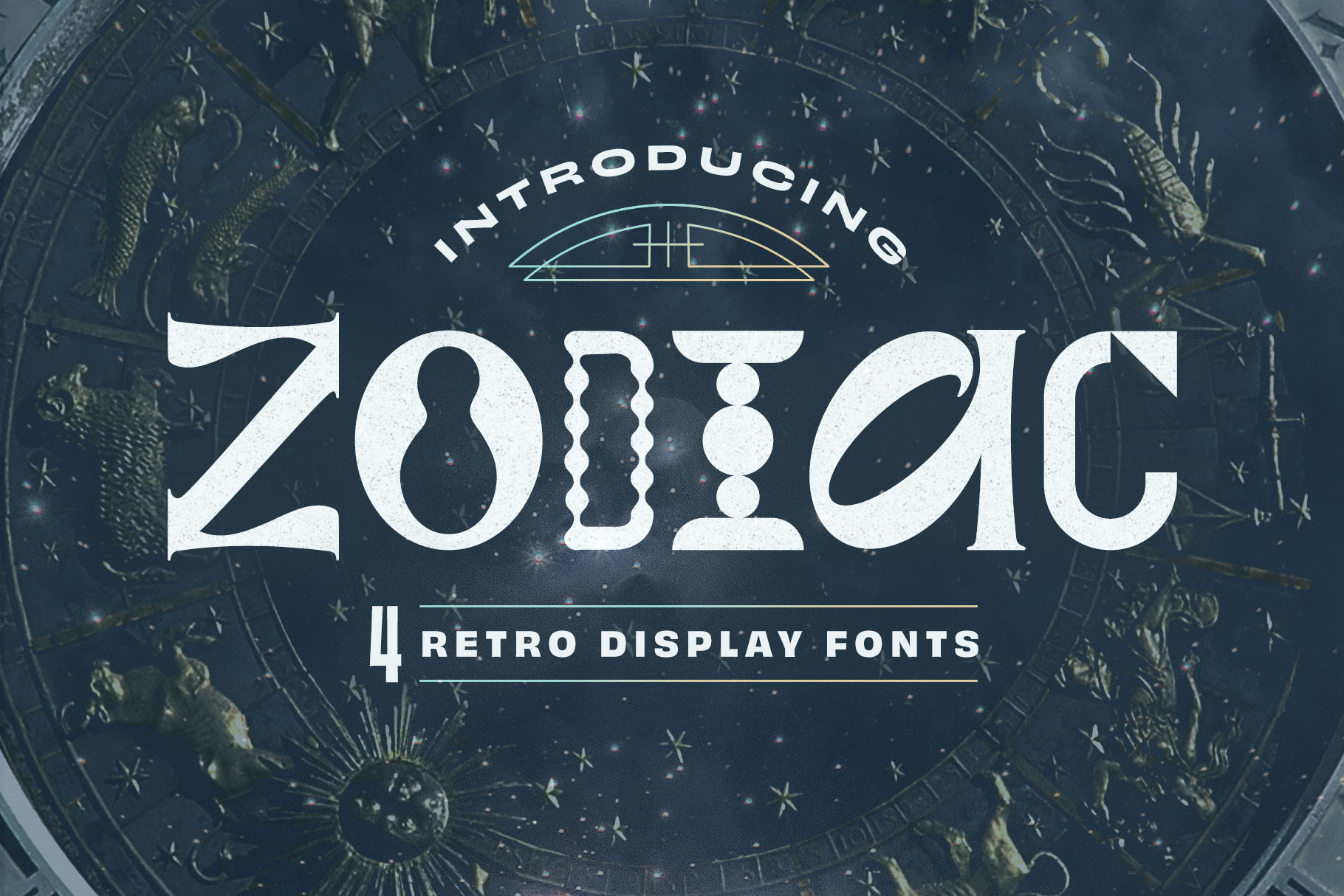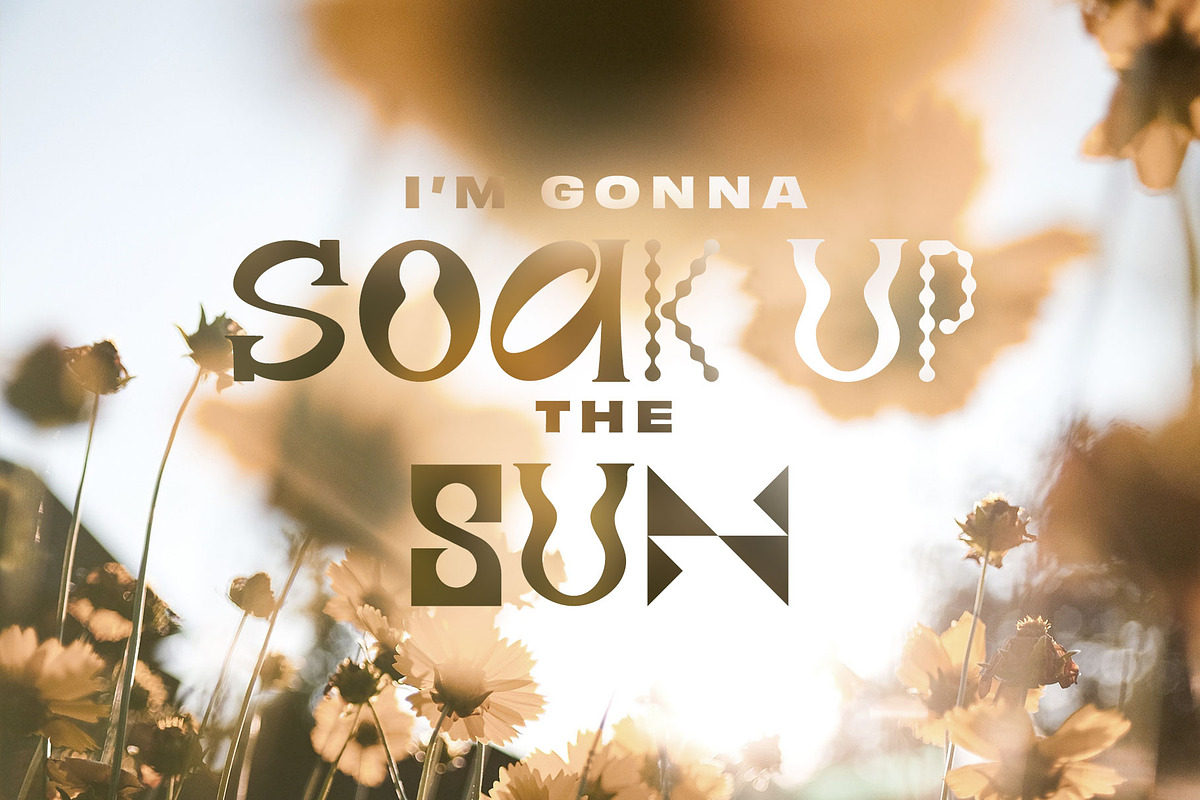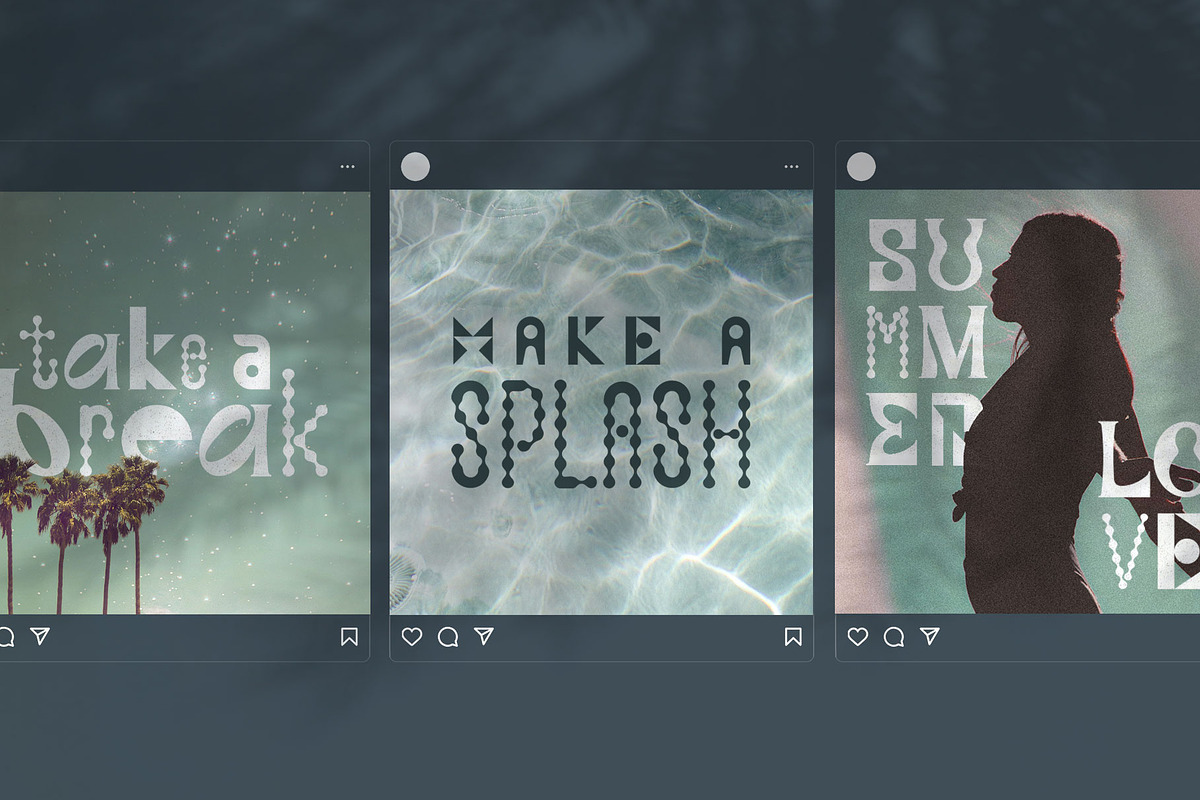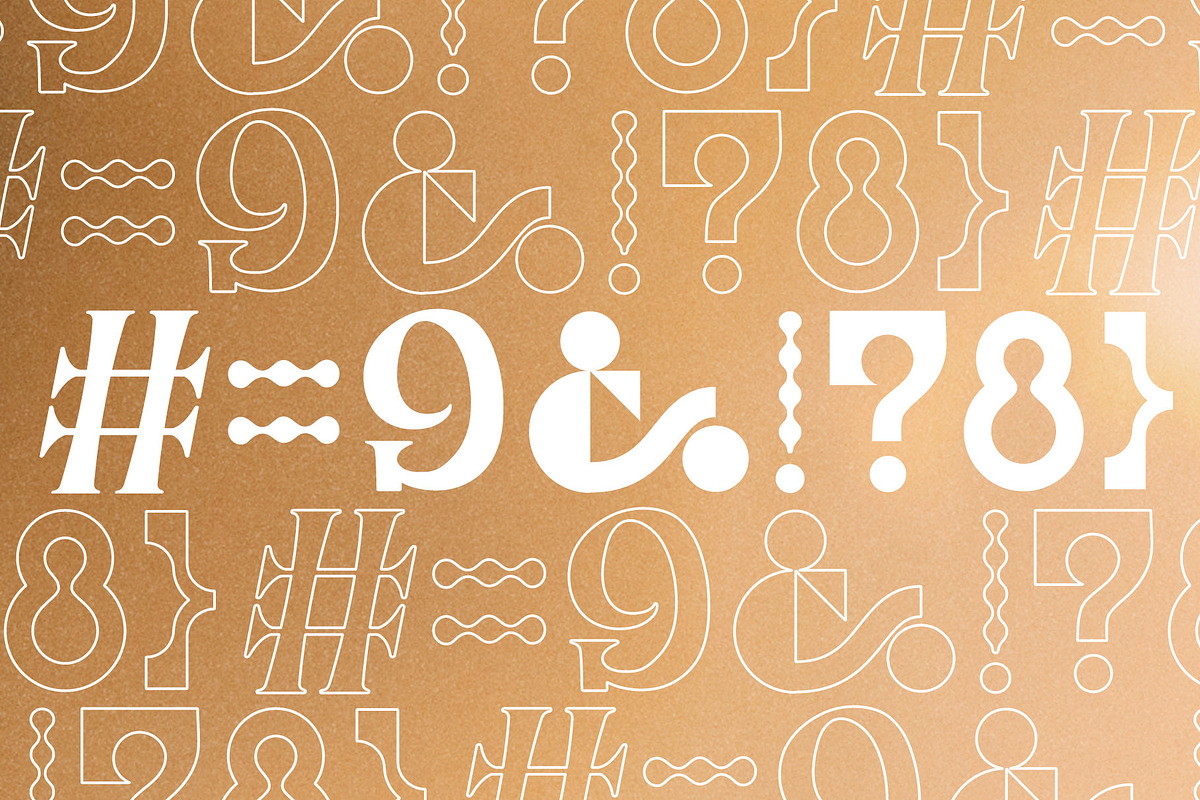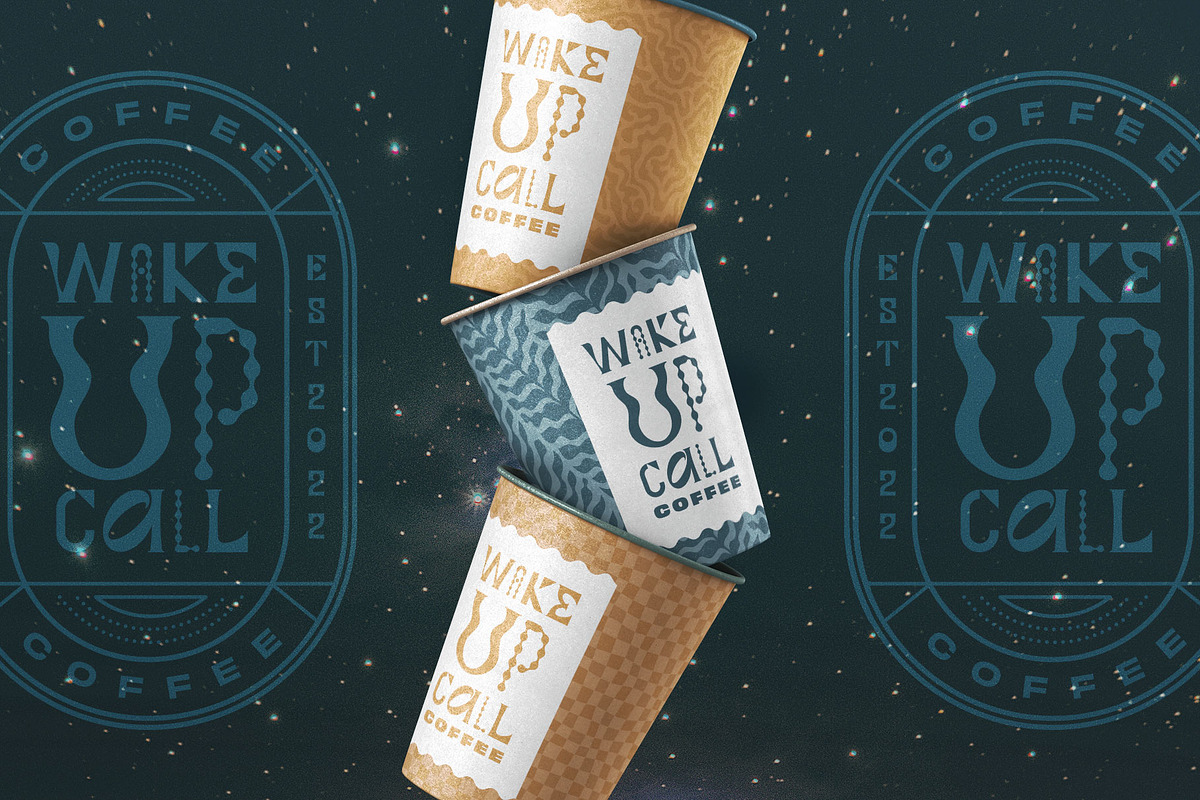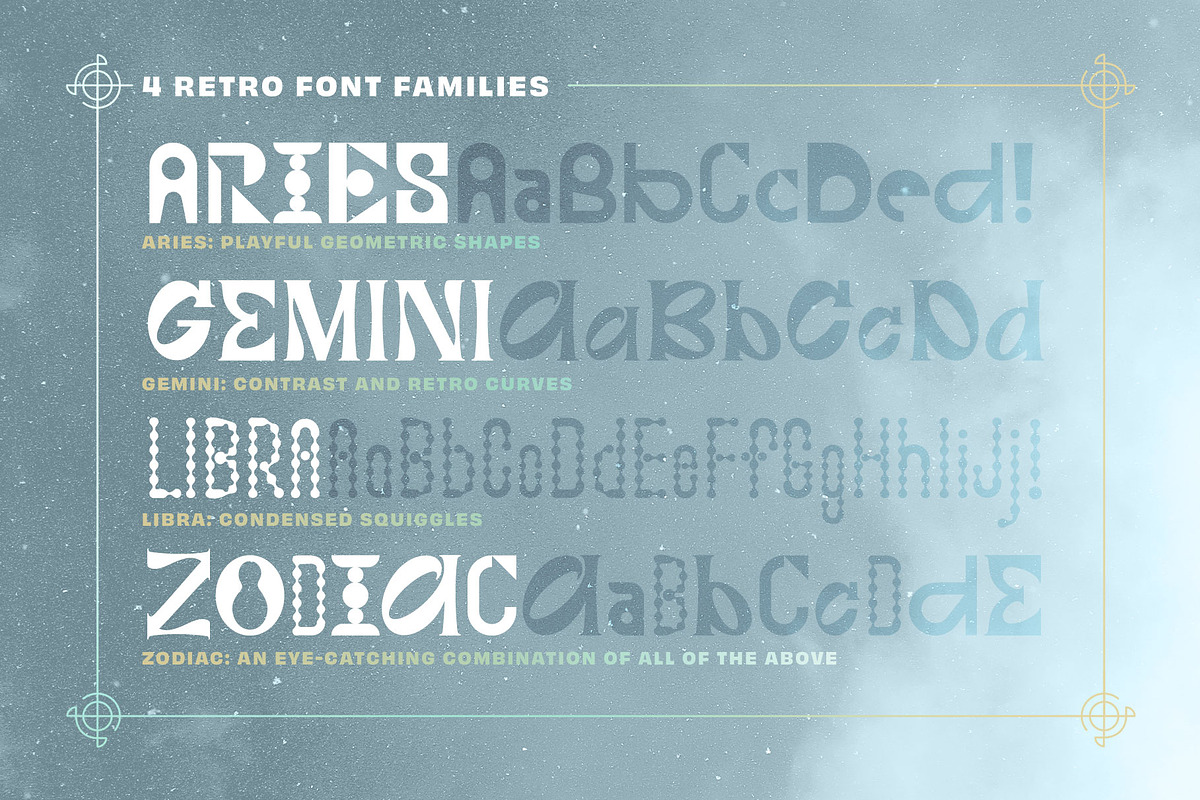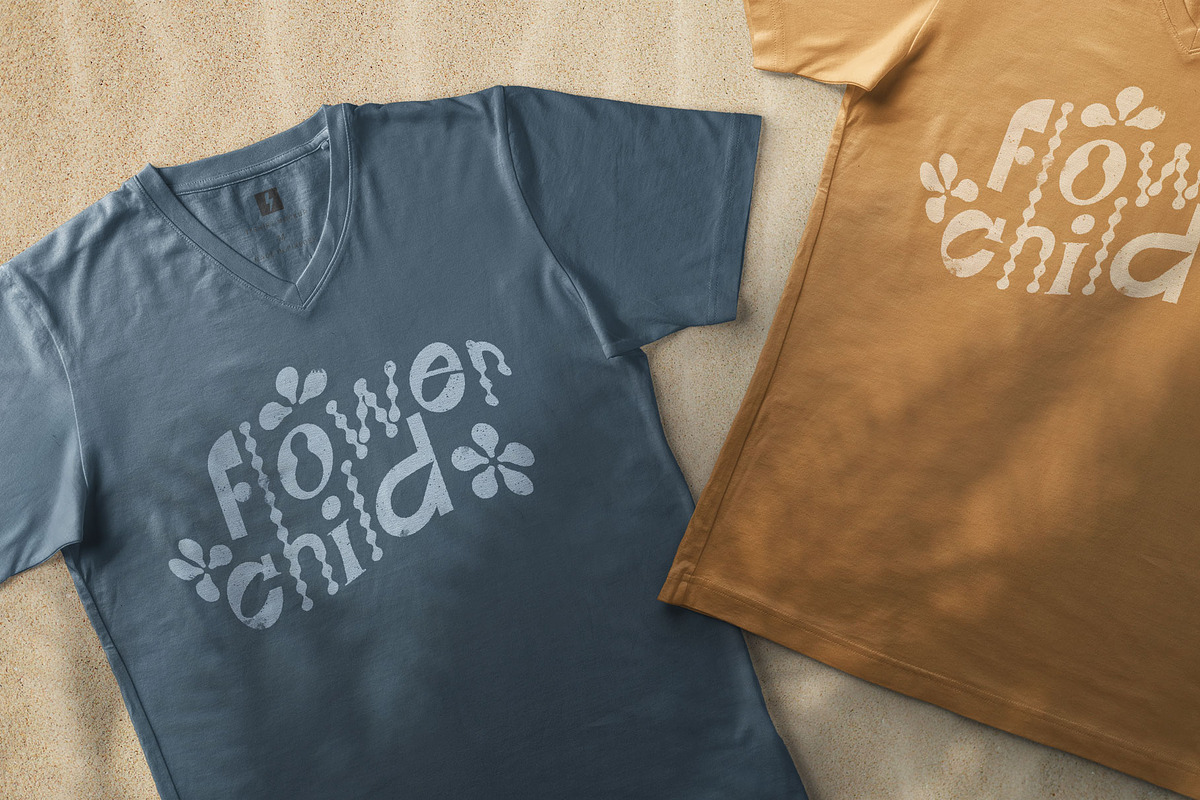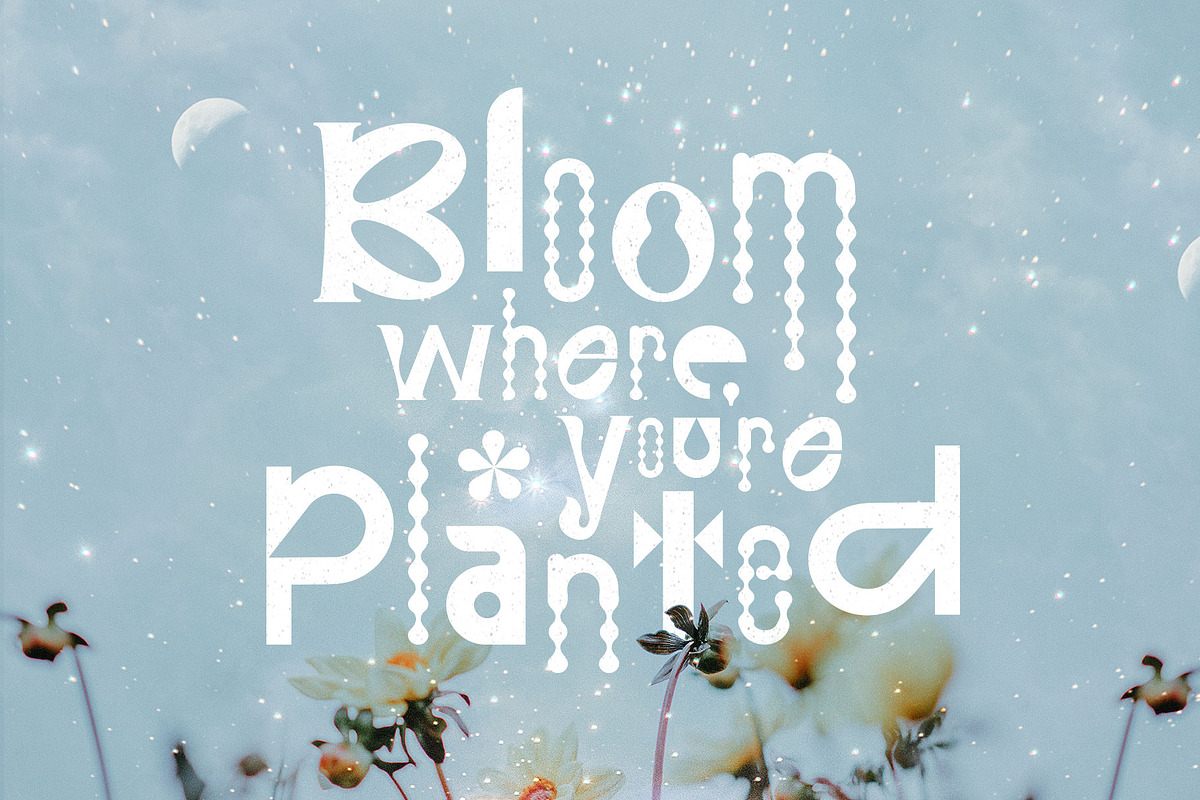
Zodiac - 4 Retro Display Fonts
Introducing "Zodiac," a collection of 4 retro-style fonts that mix and match together to create a funky, unique look.
4 font families:
- Aries, full of playful geometric shapes
- Gemini, with lots of contrast and retro curves
- Libra, a condensed font loaded with squiggles
- Zodiac, an eye-catching mixed up combination of all of the above
Use these fonts separately or together for:
- Unique poster, product, or t-shirt designs
- A fun and funky logo or brand
- Eye-catching social media images
- One-of-a kind quotes